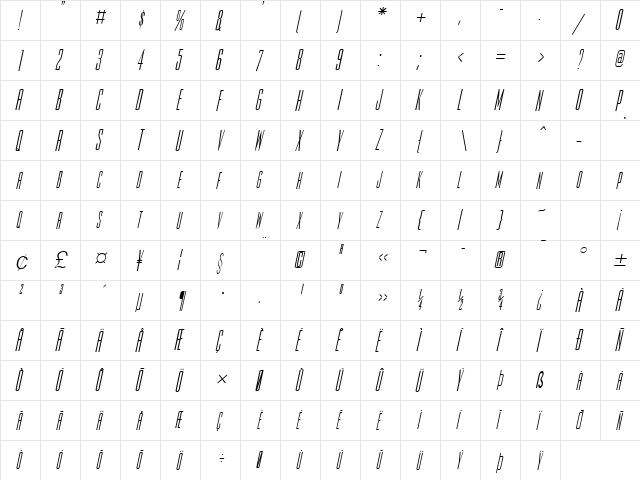
Slim Jim Italic
Design Context for Slim Jim Typeface
Slim Jim offers clean, dependable letterforms without strong stylistic allegiance, making it a practical choice for designers who need flexibility. Its italic angle brings a sense of urgency and motion to the letterforms.
Pro Tip: Use Slim Jim for emphasis, pull quotes, and subheadings where its slanted energy can add rhythm to the layout.